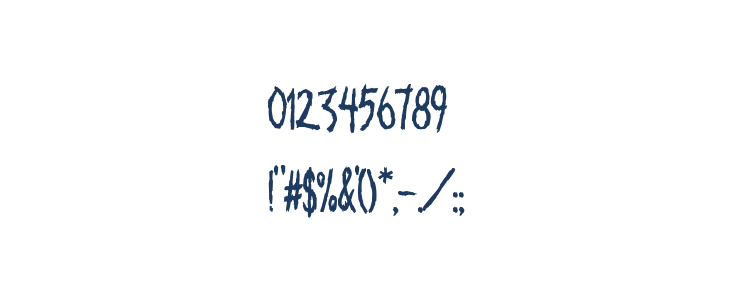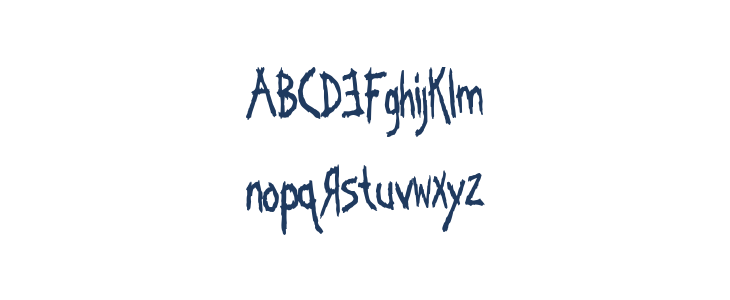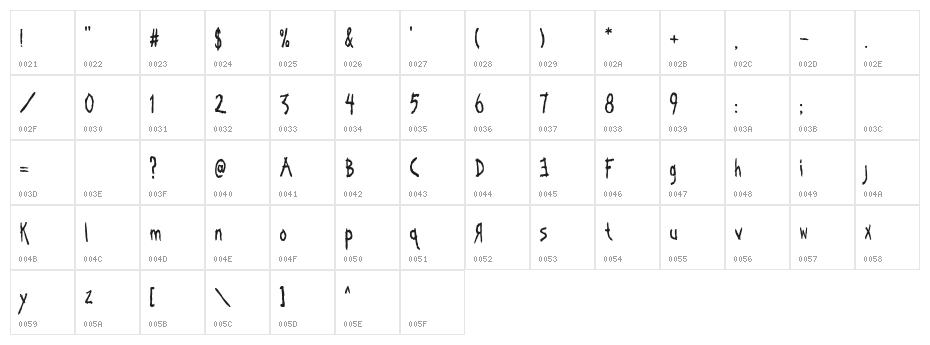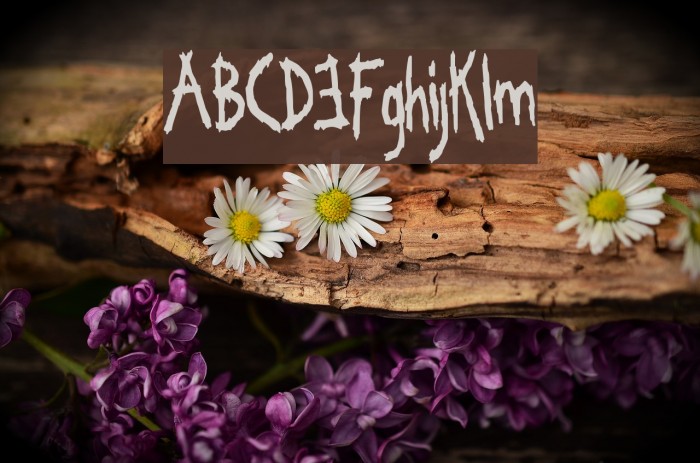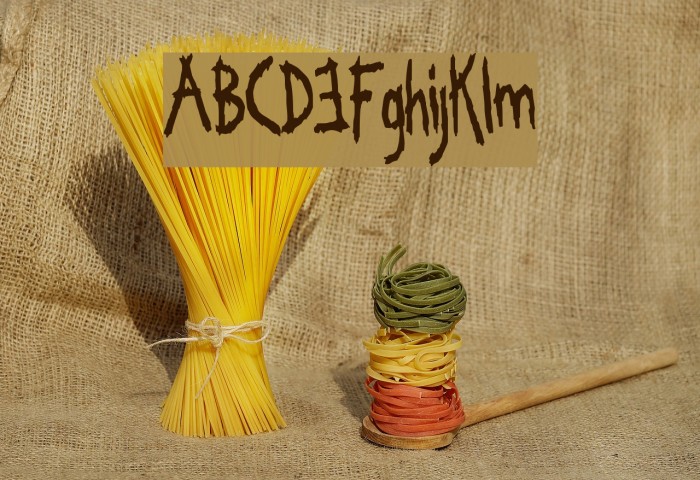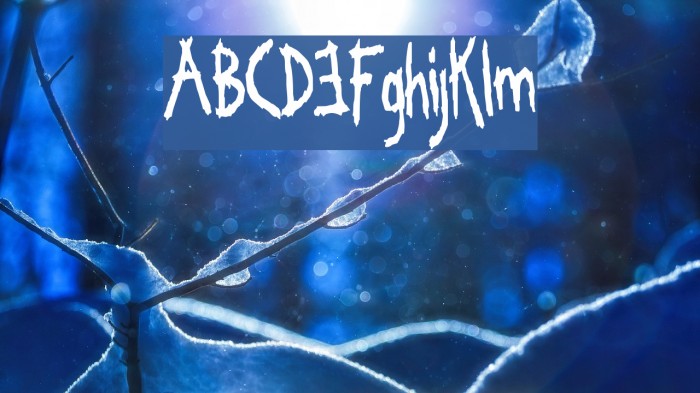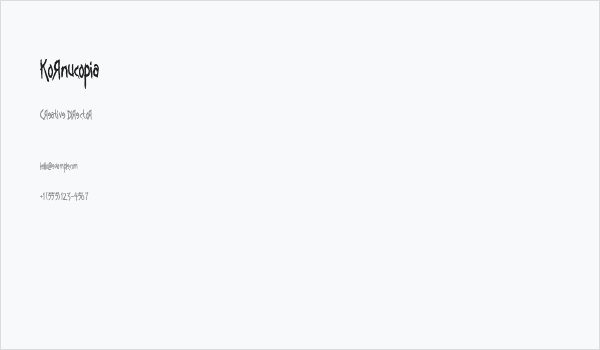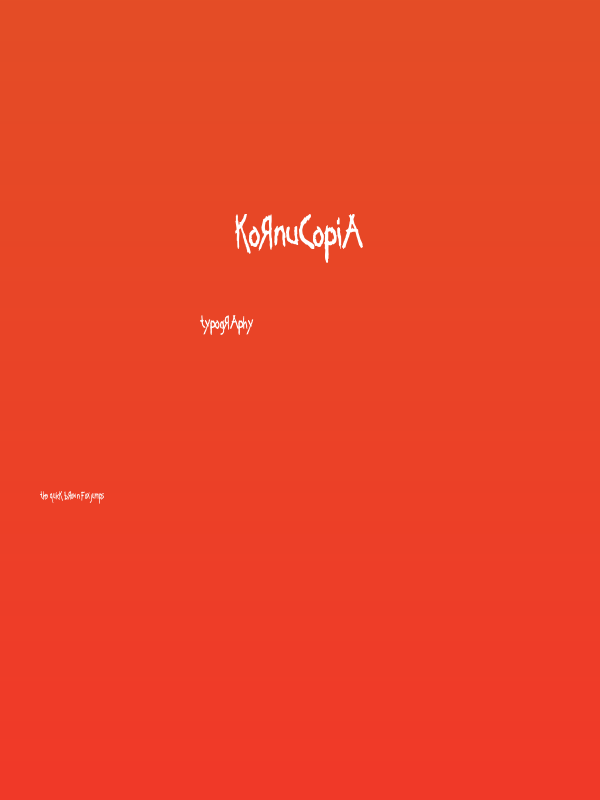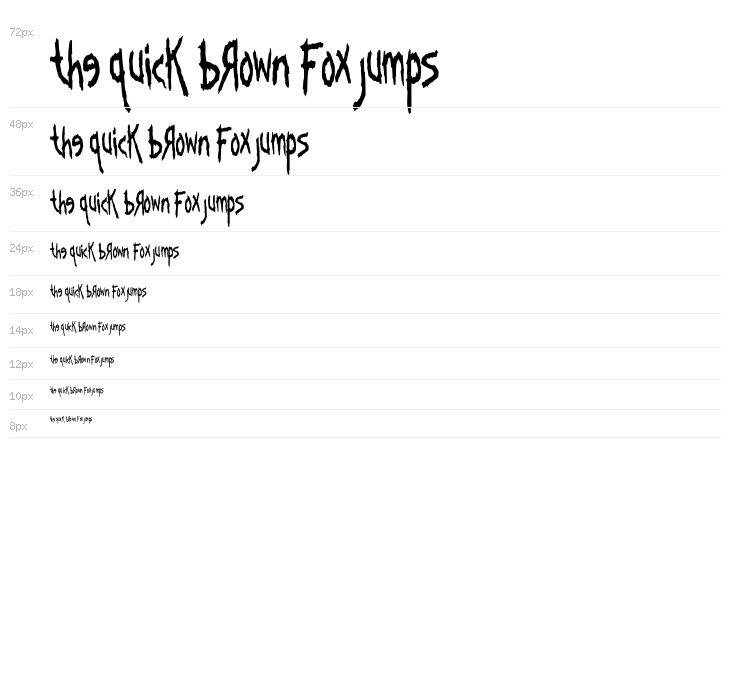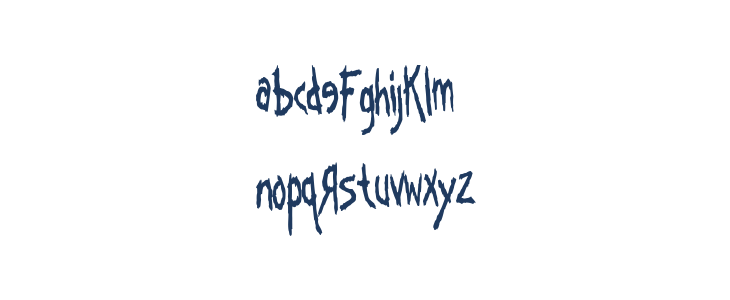
Kornucopia Font
Kornucopia Description
This font exhibits a unique, hand-drawn aesthetic with a slightly rough and uneven texture, giving it a raw and organic feel. The characters are irregularly shaped, adding to its informal and playful appearance. The uppercase and lowercase letters maintain a consistent style, with some characters featuring exaggerated curves and angles. The numbers and special characters follow the same design principles, ensuring a cohesive look across all glyphs. This font's distinctive style makes it stand out, suitable for projects that require a touch of creativity and individuality.